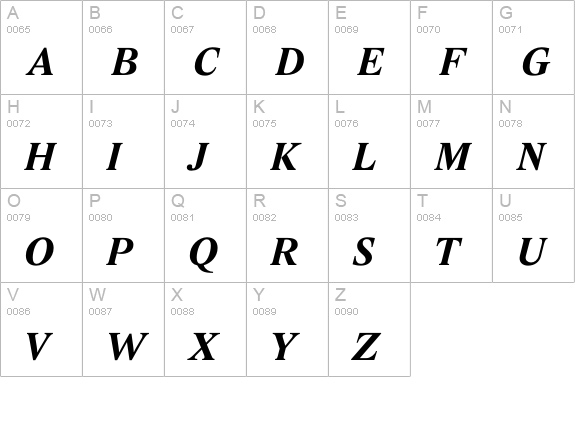
Lido STF CE Bold Italic is a strong, high-contrast, italic variant in the Lido typeface family \xE2\x80\x94 well suited to headlines, attention-grabbing titles, and strong calls-to-action.
The Lido STF CE Bold Italic font exudes a sense of modernity and sophistication with its bold strokes and elegant italics. This versatile typeface is perfect for adding a touch of flair to any design project, whether it be for branding, advertising, or editorial purposes. The bold italic style of the Lido STF CE font commands attention and makes a bold statement, while maintaining a sense of refinement and elegance. What makes the Lido STF CE Bold Italic font even more appealing is that it is available for free download at FontsMarket.com. This means that you can easily access this stylish typeface without any cost, making it a valuable addition to your font collection. Elevate your designs with the Lido STF CE Bold Italic font and make a lasting impression with its striking and distinctive appearance.